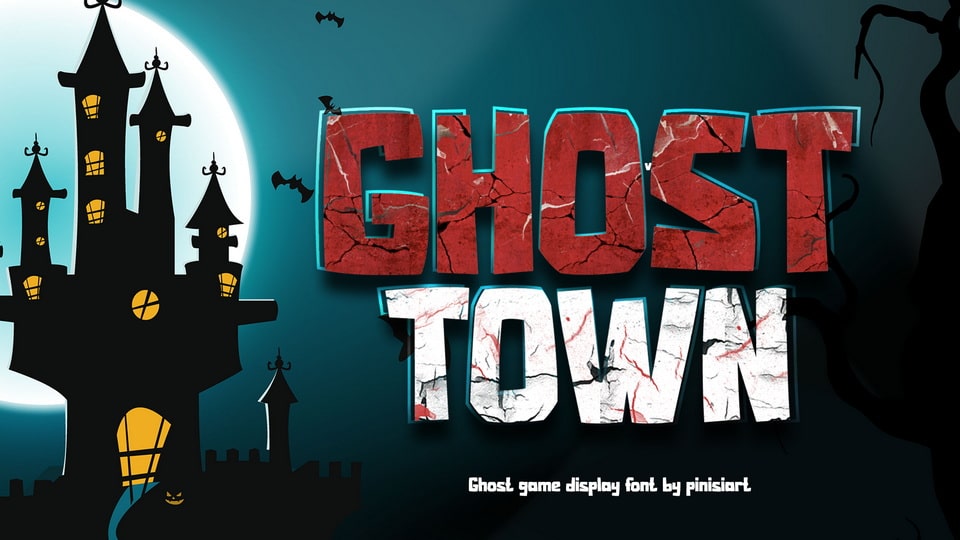
Download Ghost Town font, a game display typeface. The dark and terror, the cold breeze, and screaking tree branches, Ghost Town will emphasize the fear of your already frightening event.